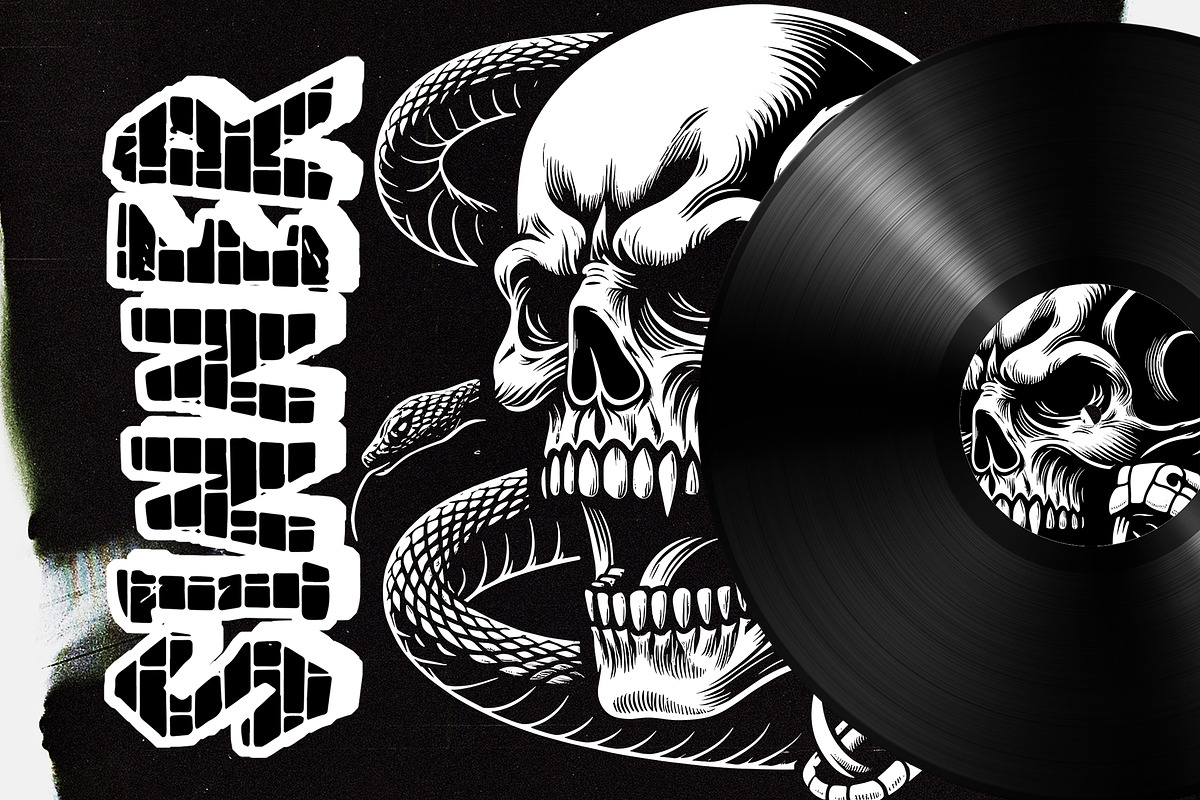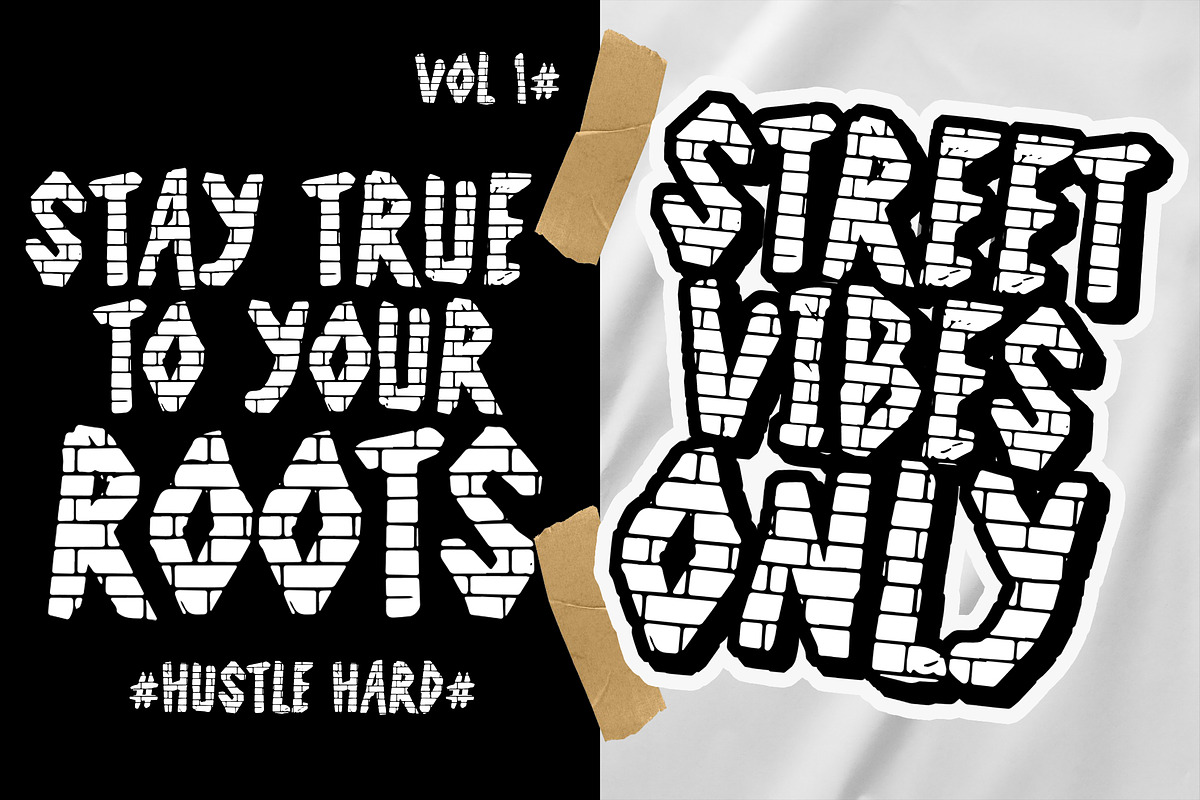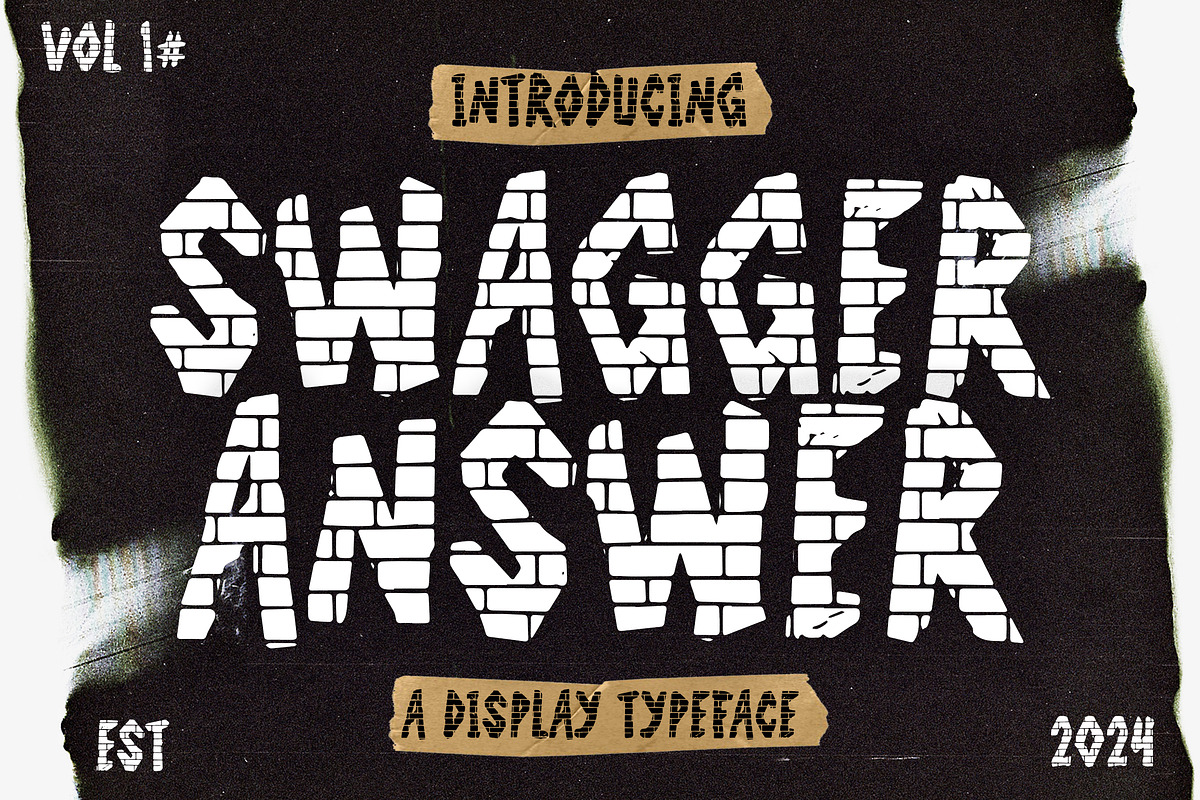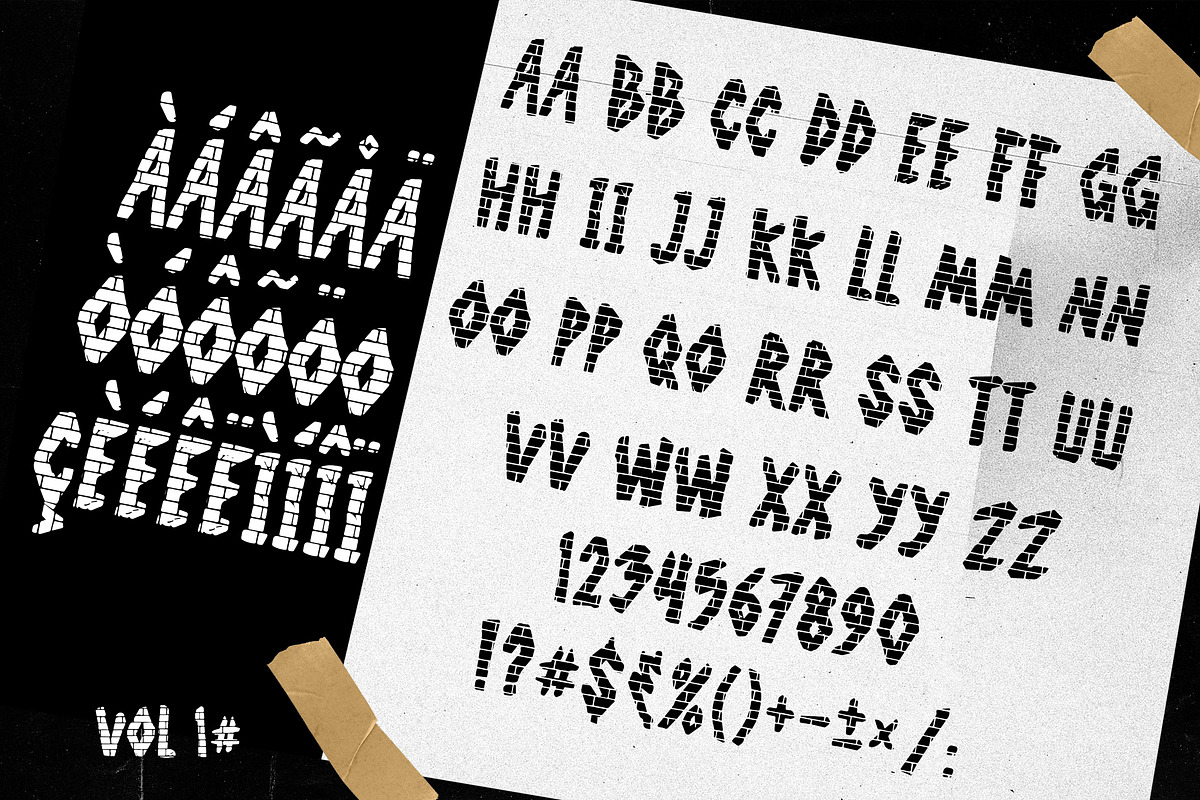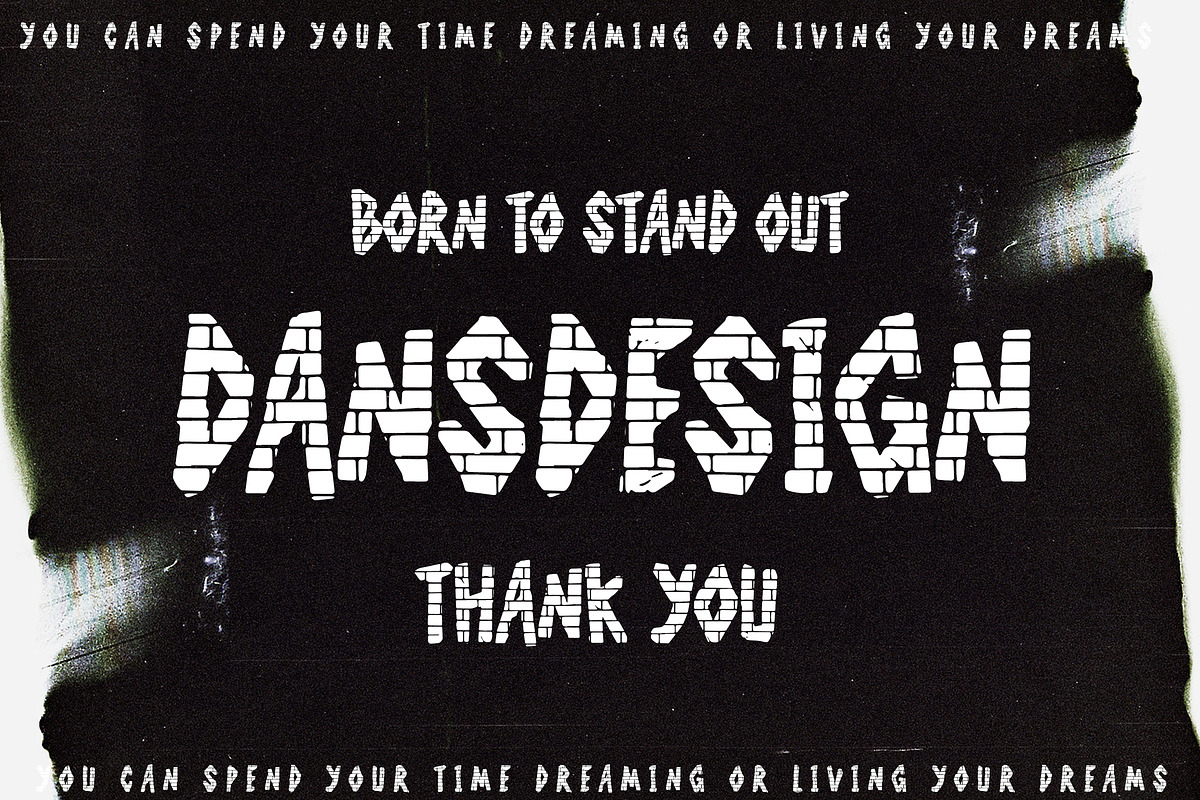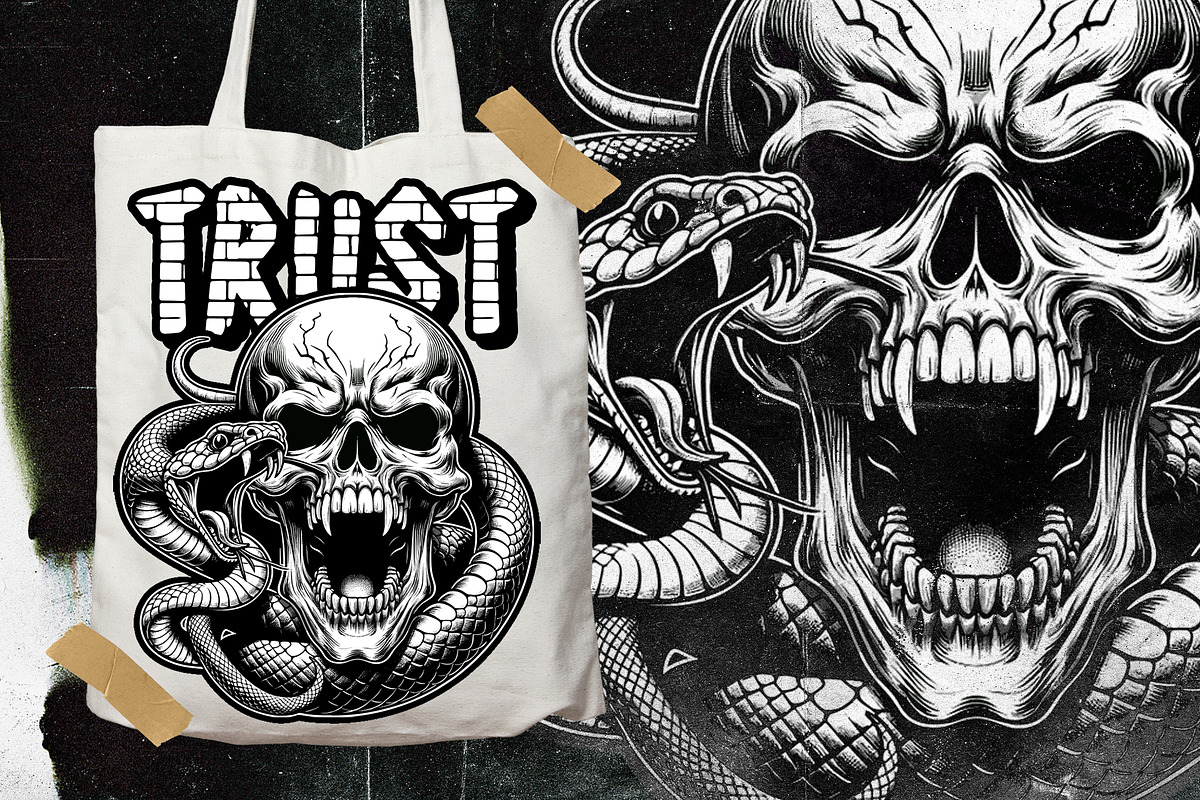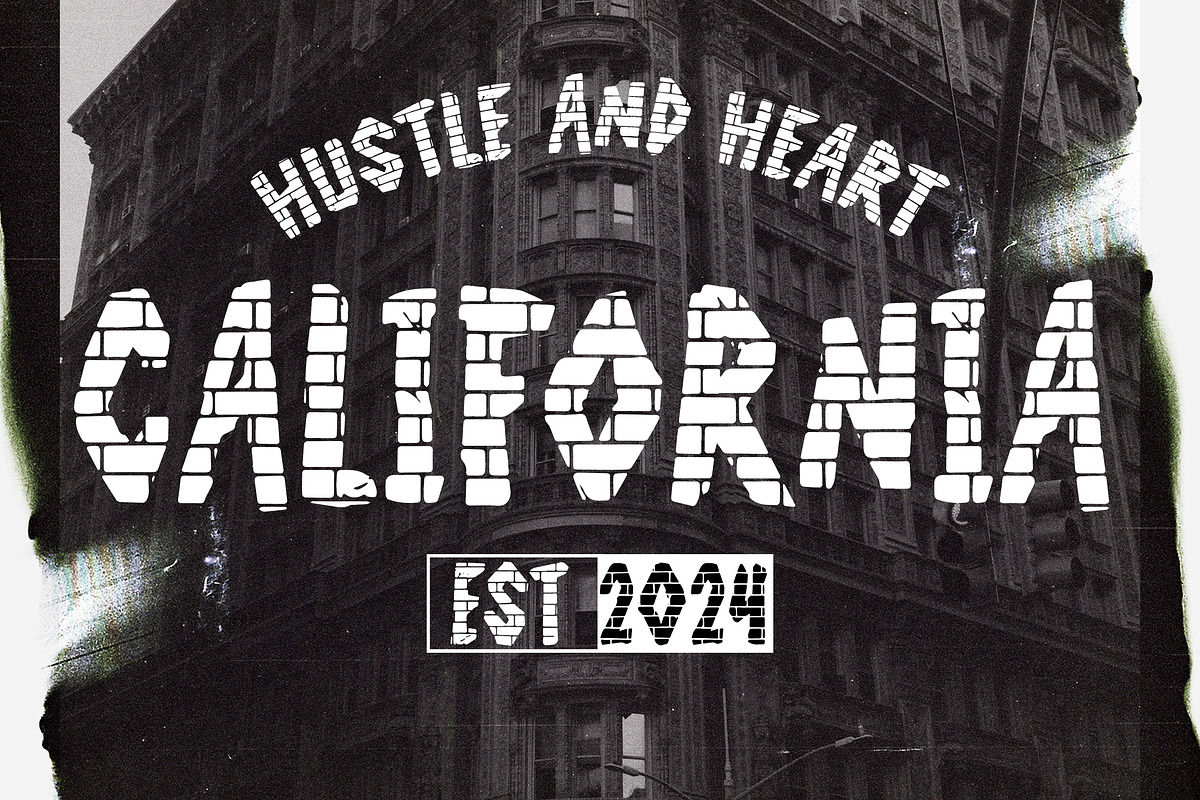
Swagger Answer Graffiti Y2k Display
Swagger Answer Graffiti Y2k Display Font
Swagger Answer Graffiti Y2k Display Font a distinct, highly detailed. Marker Display Font. It would make a great choice for exquisite retro-urban designs, business branding, logos, Apparel designs, and more.